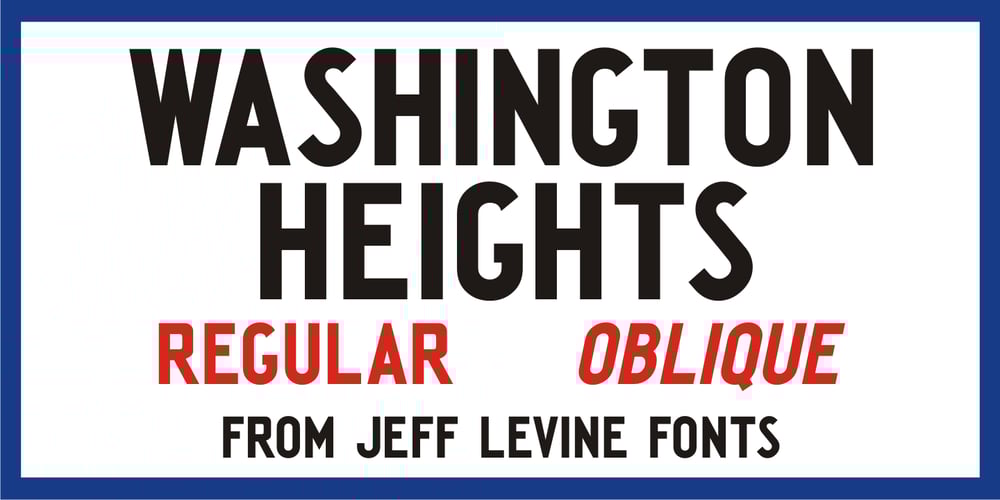
Washington Heights JNL Font Family was designed by Jeff Levine and published by Jeff Levine. Washington Heights JNL contains 2 styles and family package options. Washington Heights JNL is a sans serif type design based on a vintage hand-made directional sign for the New York subway system.